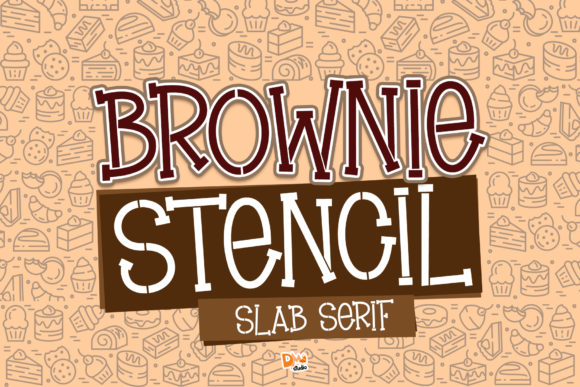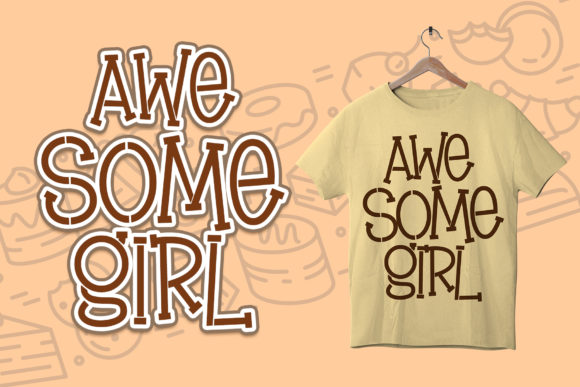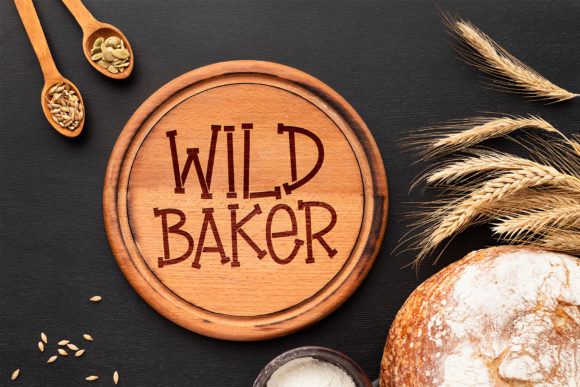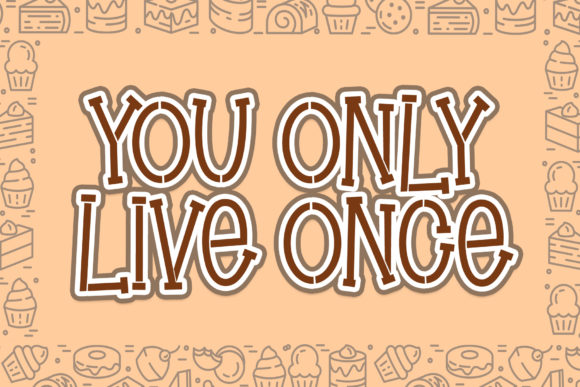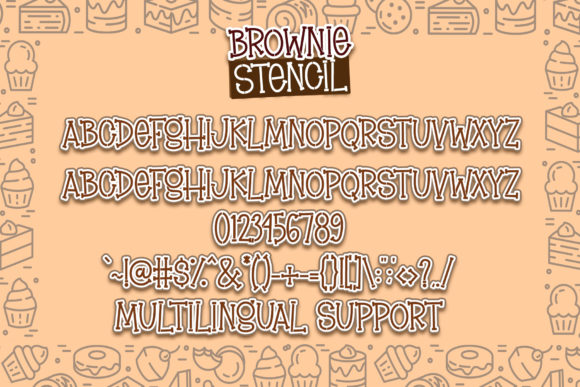
Brownie Stencil
Brownie Stencil: A Fun and Quirky Slab Serif Font
Brownie Stencil is a distinctive slab serif font that combines fun and quirkiness with a neat aesthetic. This typeface offers designers a versatile tool for creating impactful typography, particularly suited for children’s projects and school-related designs.
Key Features of Brownie Stencil
• Fun Design: Features a playful and engaging appearance that captures attention
• Quirky Character: Incorporates unique and unconventional elements for added personality
• Neat Aesthetic: Maintains a clean and tidy look despite its playful nature
• Slab Serif Structure: Includes the characteristic thick, rectangular serifs typical of slab serif fonts
• Stencil Style: Offers a distinctive stenciled look for added visual interest
• Versatile Application: Ideal for a wide range of children or school projects
Ideal Uses for Brownie Stencil
Brownie Stencil’s unique characteristics make it particularly well-suited for:
• Children’s book typography
• School project designs
• Educational materials and posters
• Playful branding for kid-focused products
• Fun signage for children’s spaces
• Quirky headlines in youth-oriented publications
When incorporating Brownie Stencil into your designs, consider the following tips:
• Use for headlines or short blocks of text to maximize its fun and quirky impact
• Experiment with different sizes to highlight the font’s unique stencil details
• Pair with simpler sans-serif fonts for body text to create contrast
• Consider using it in projects where you want to convey a sense of playfulness and creativity
Brownie Stencil is an excellent choice for designers looking to add a fun, quirky, and neat slab serif to their typographic toolkit. Its playful character and stencil style make it stand out in the world of typography. Whether you’re working on logo designs for children’s brands, creating layouts for school projects, or developing engaging educational materials, Brownie Stencil offers the perfect blend of fun and readability.
Add Brownie Stencil confidently to your designs and watch how it brings a playful and quirky edge to your projects. From fun educational posters to engaging children’s book layouts, this font provides the tools to create impactful and memorable typography that appeals to young audiences and the young at heart.